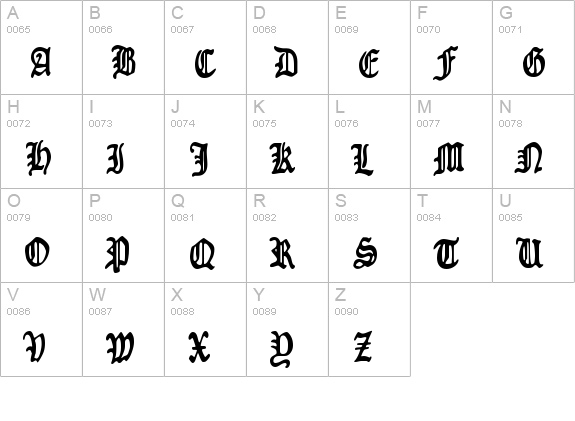
Benighted Font Details
Benighted font is a stunning display typeface that exudes a sense of mystery and darkness with its intricate details and unique design. This font is perfect for creating eye-catching headlines, logos, and posters that demand attention. The sharp edges and bold strokes of Benighted font make it stand out in any design project, adding a touch of sophistication and edginess. Whether you are working on a horror-themed project or looking to make a bold statement, Benighted font is sure to leave a lasting impression. What's even better is that Benighted font is available for free download at FontsMarket.com. You can easily access this versatile font and incorporate it into your creative projects without any hassle. Don't miss out on the opportunity to add a touch of darkness and intrigue to your designs with Benighted font.